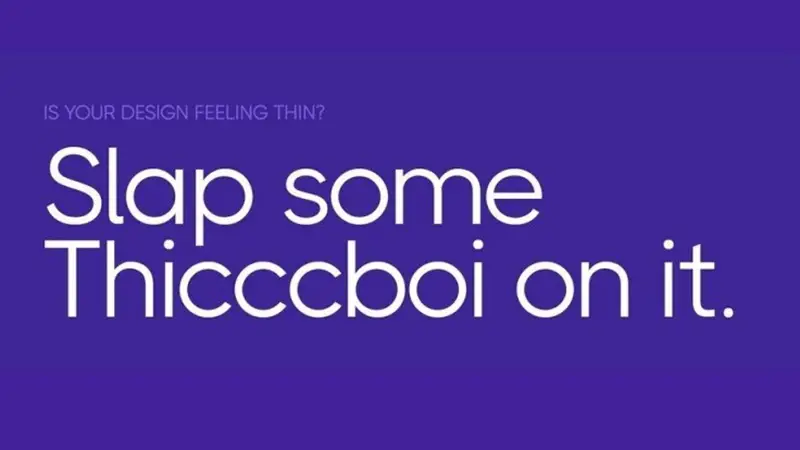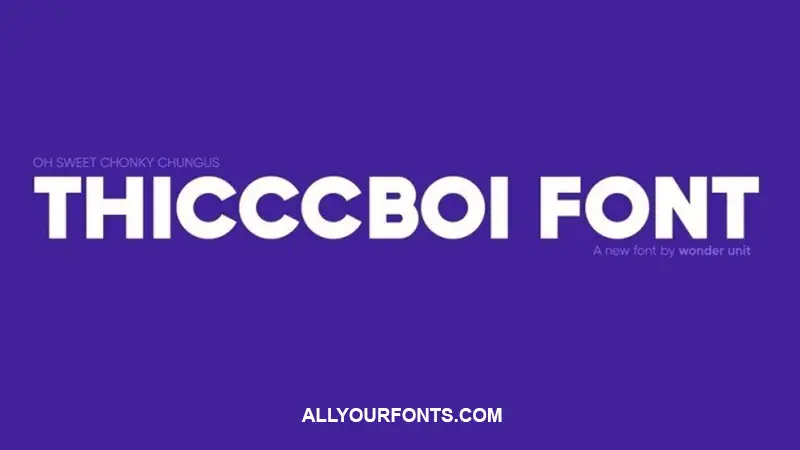
Thicccboi Sans Font is a basic sans serif font that has a clean and bold look. It has small x-height along with tall ascenders and wide capital letters that make an elegant look in paragraphs.
It has simple geometric letters that featuring the soften round edges with a modern look. So, that makes it perfect for the modern age.
Wonder Unit Inc. took the charge for designing it and relating it for the first time in 2017. And its designer team taken the inspiration from the lettering found on modernist building plans.
After that, the peoples have observed that an amazing unique font come in the market which can work in official tasks and stylish tasks also.
Thicccboi Sans Font Family
Thicccboi Sans Font Family has available in 9 weights including Thin, Light, Regular, and Extra Bold. All of these weights have Truetype features along with 155 characters.
Other than those, that has supported several international languages. And also make a great font pair with serif and sans serif font families.
So, all of these features lead to it for the best font category. That has an amazing capability to work in a friendly manner in all situations.